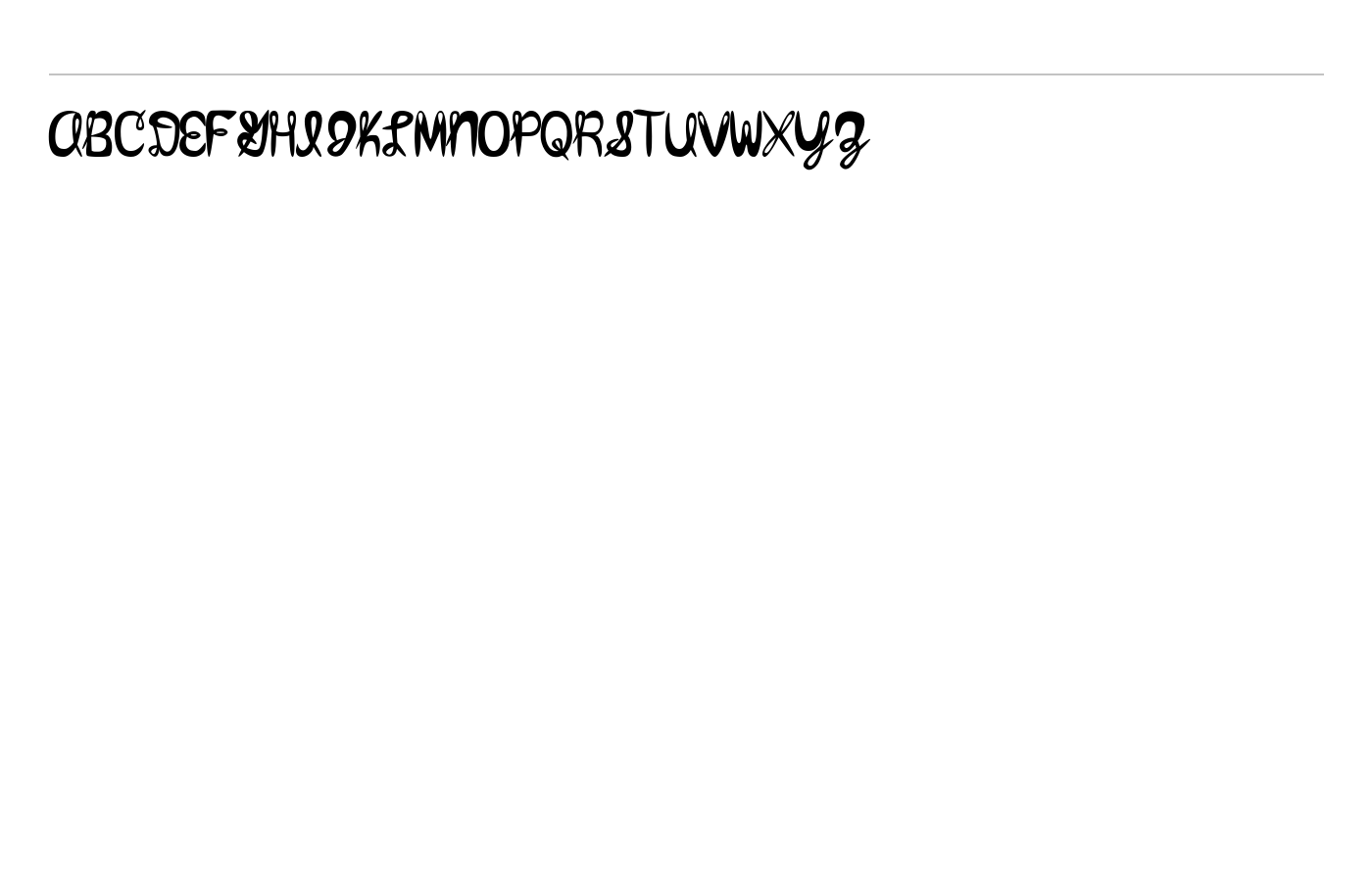
Amixmutt is a playful and artistic script font featuring bold, irregular strokes that combine a hand-drawn feel with decorative swirls and loops. Its lively and quirky letterforms make it ideal for creative projects, logos, and display use where a casual, energetic personality is desired. This font shines in designs aiming for a fun and informal vibe that stands out with unique character.
amixmutt Font